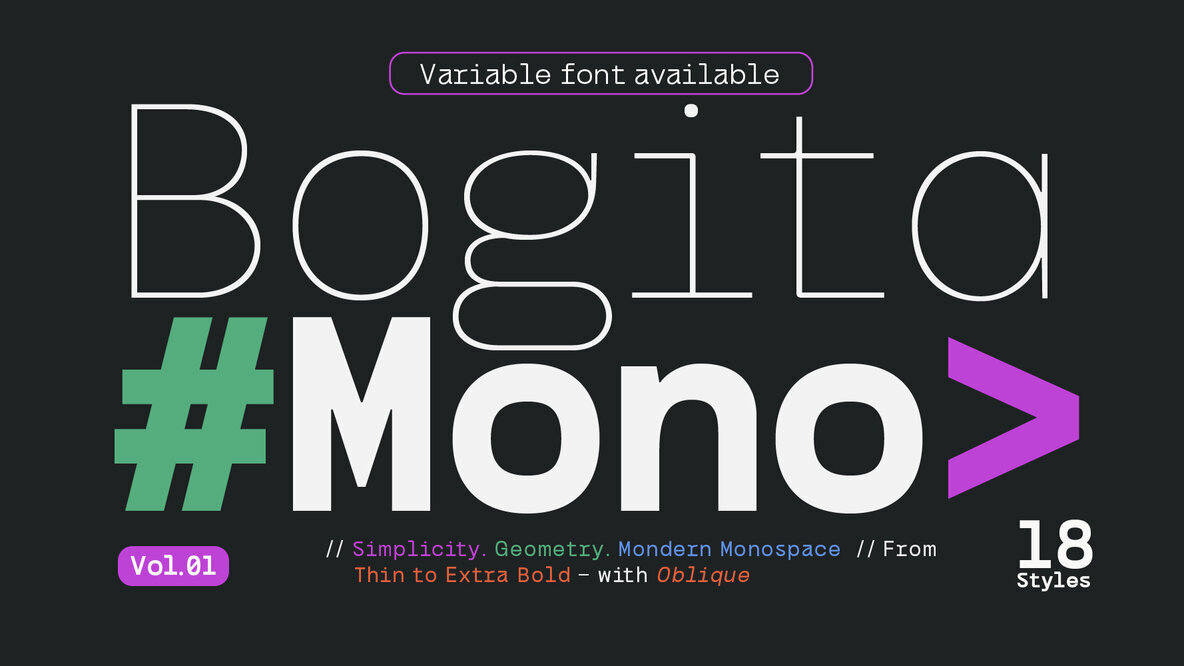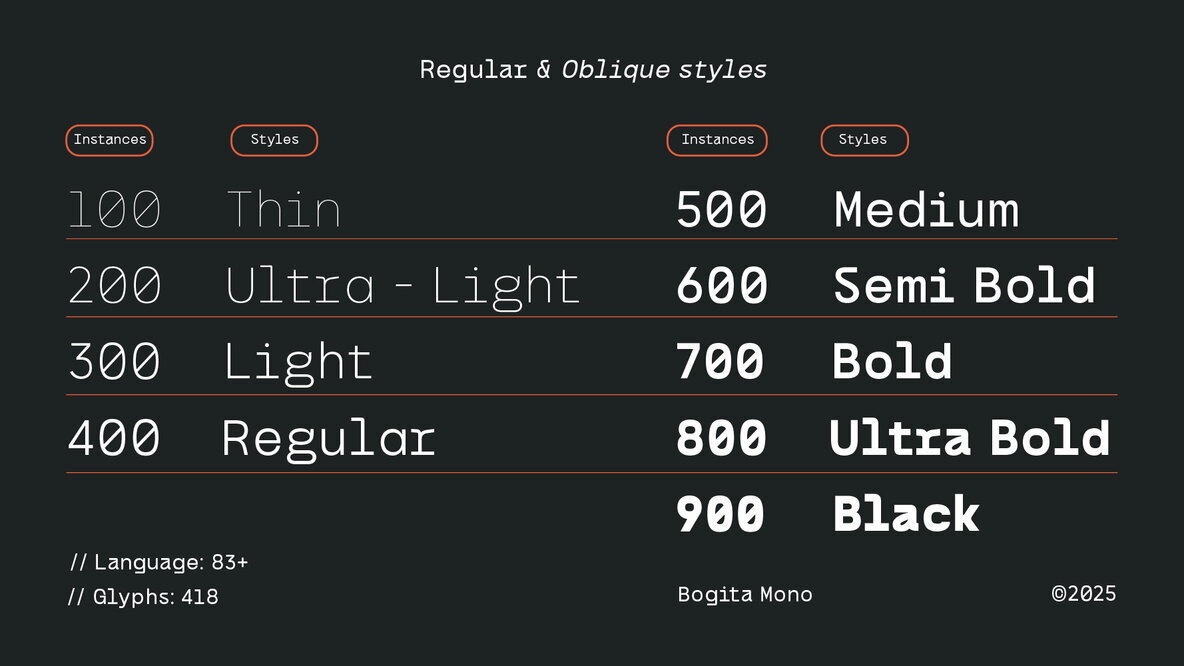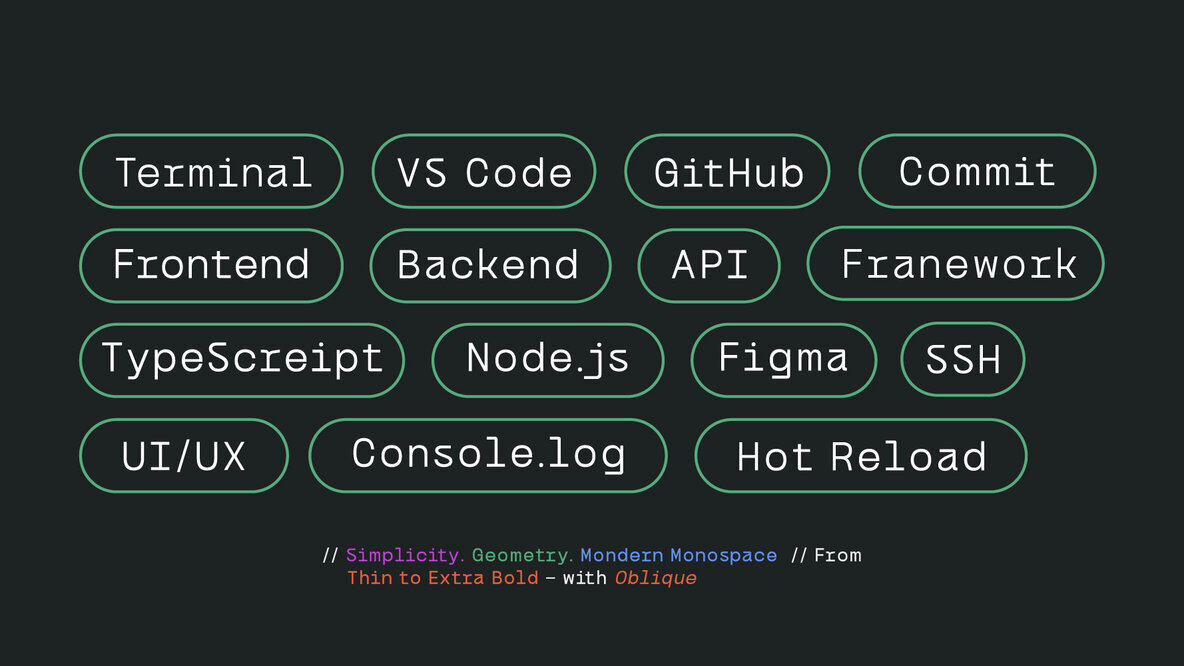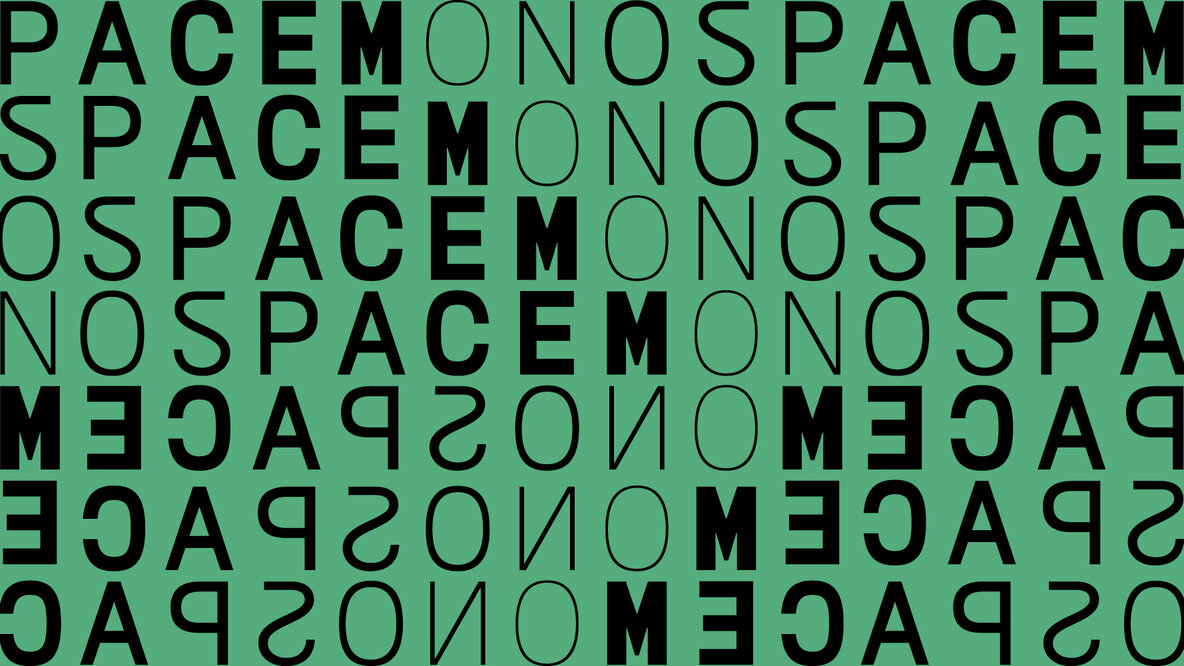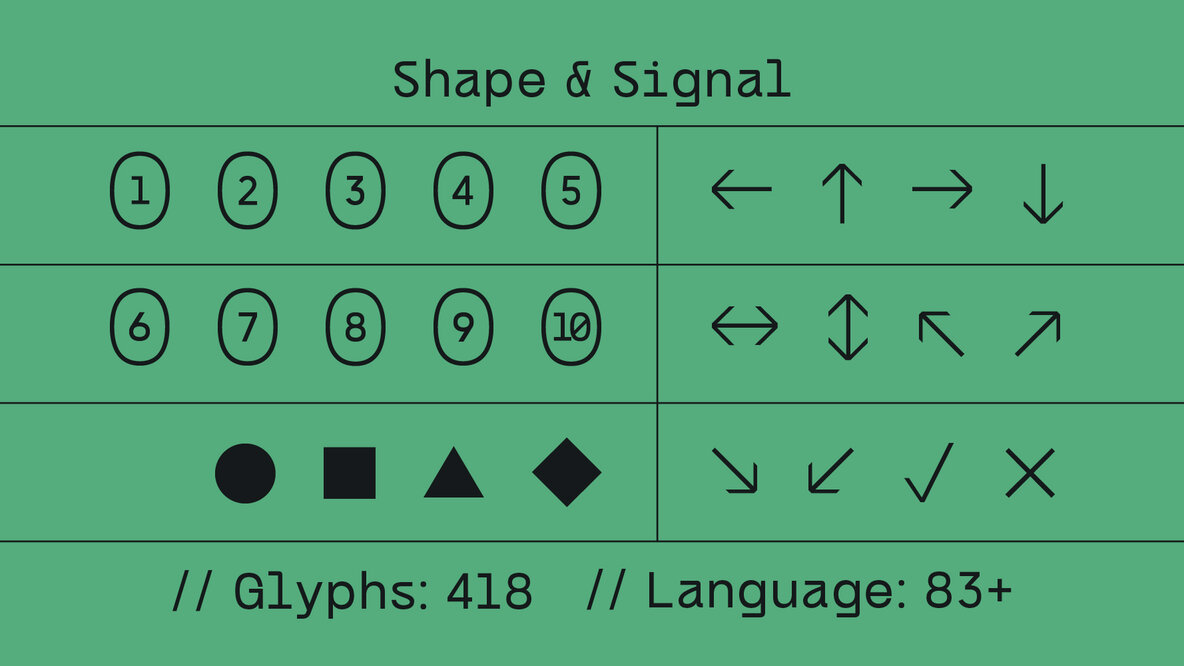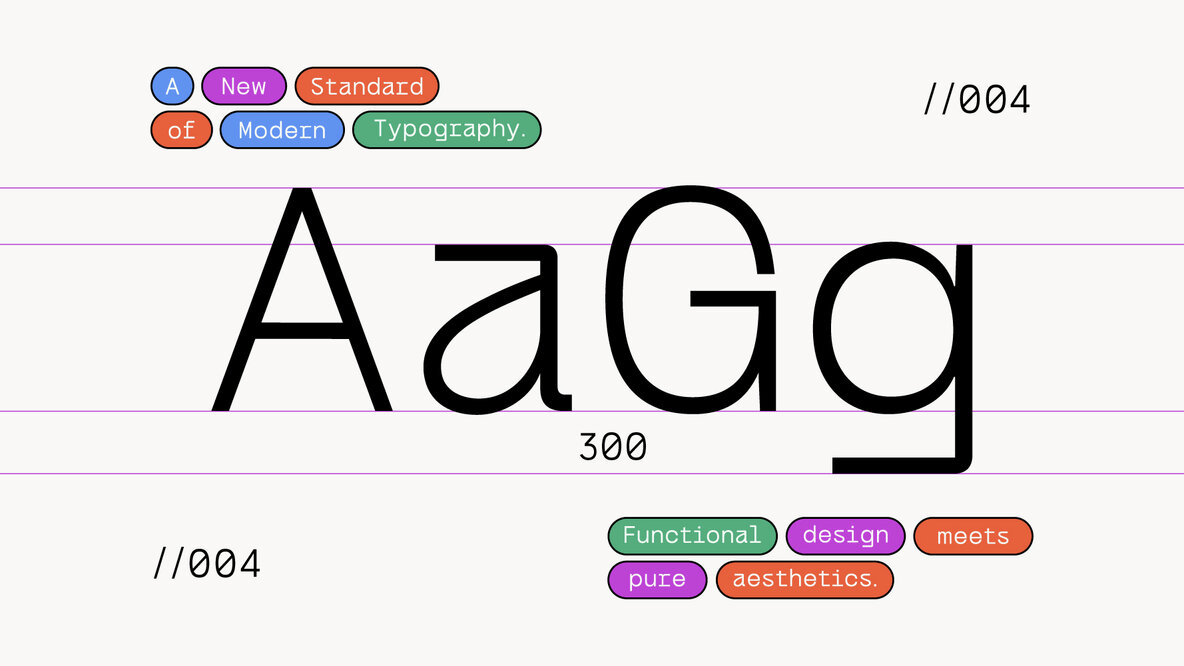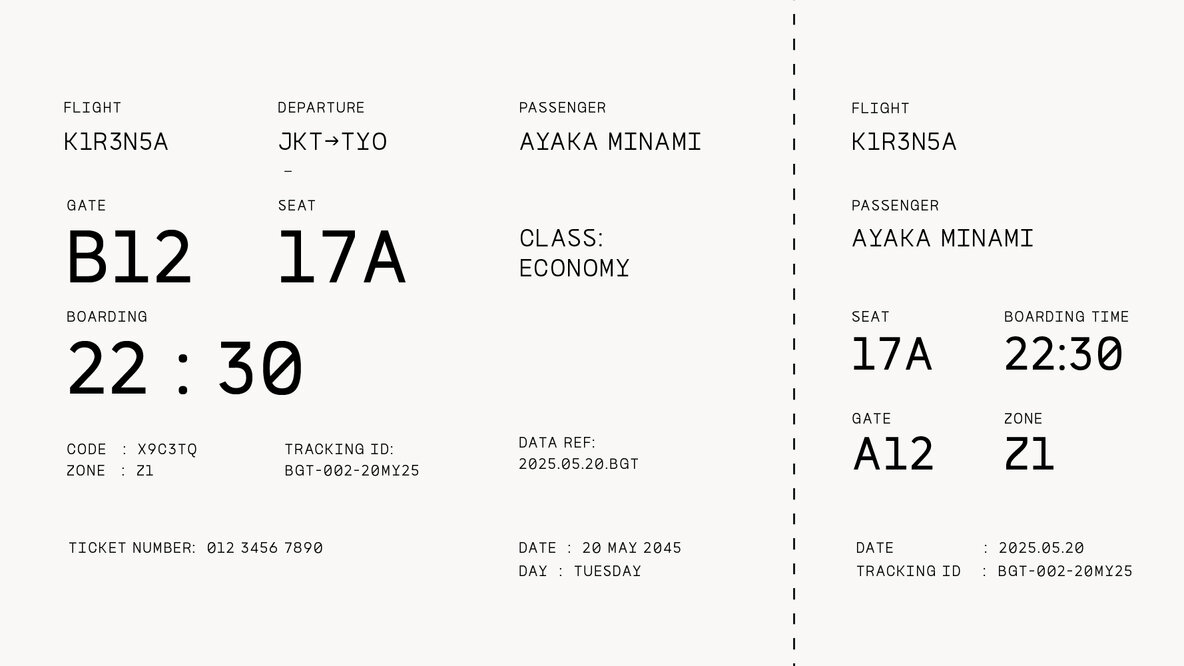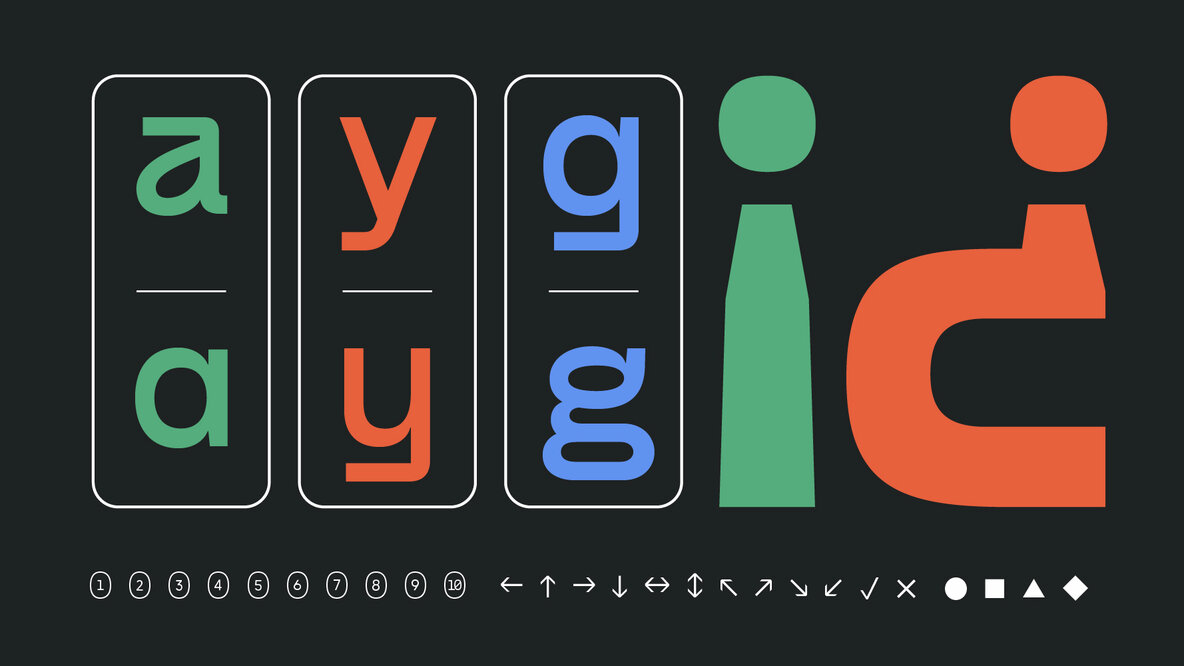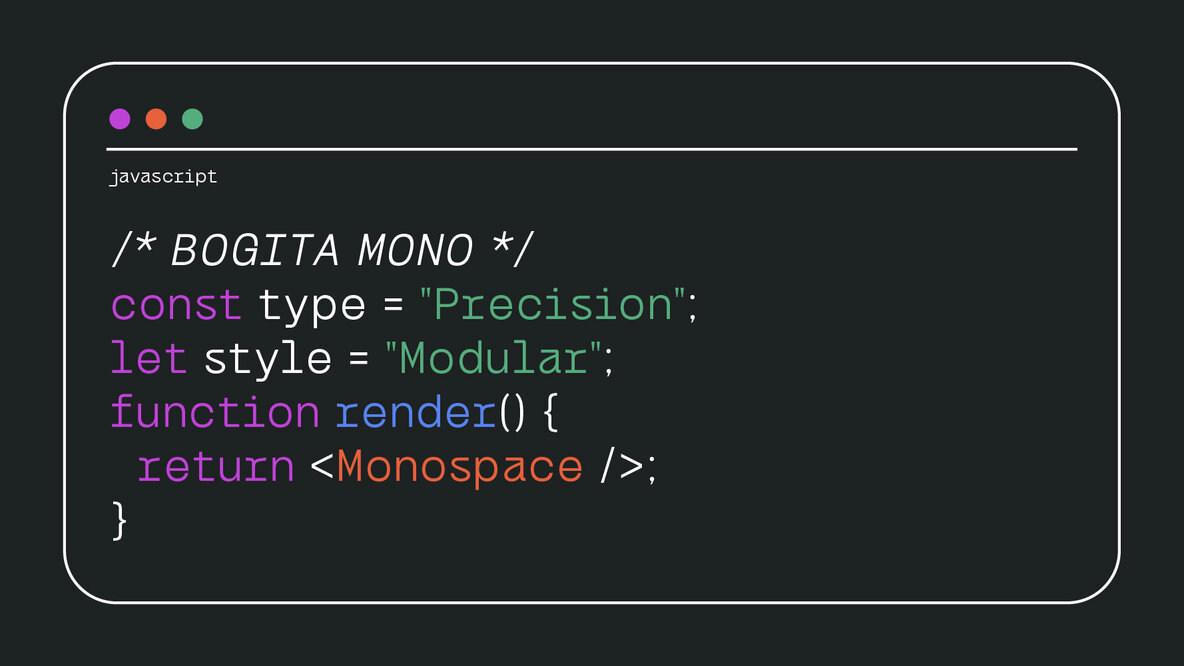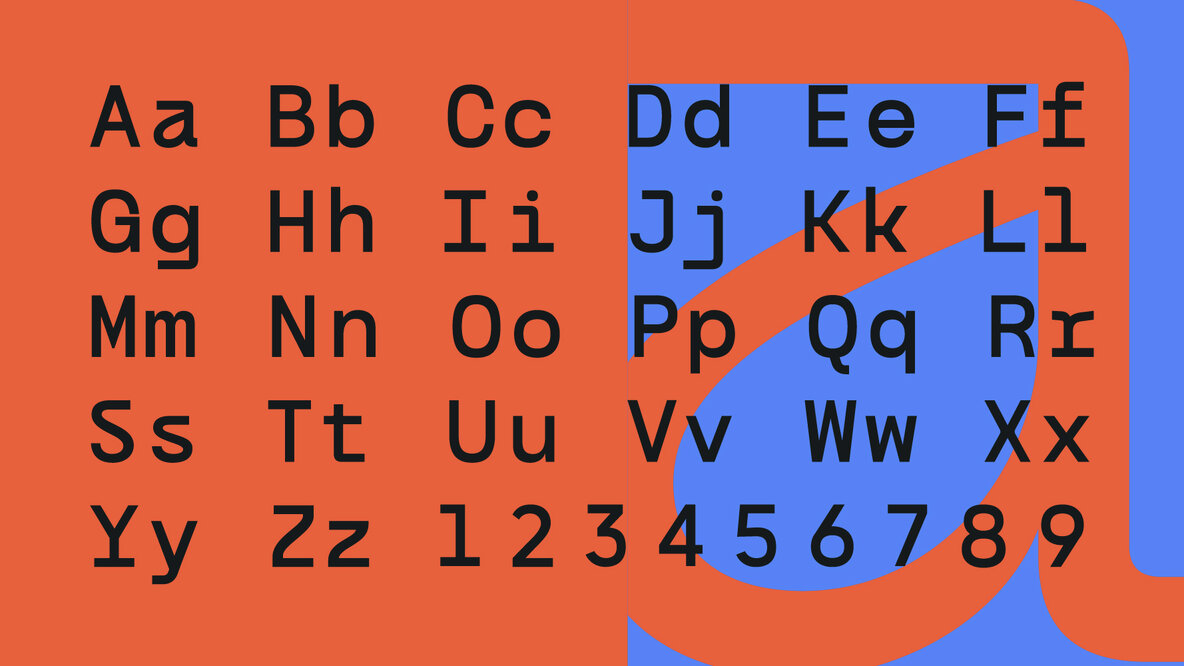
Bogita Mono Font
Bogita Mono Variable
Bogita Mono is a geometric monospace typeface defined by its simplicity and precision. As a font that seamlessly combines the elegant structure of a coding typeface with a contemporary aesthetic, Bogita Mono is ideal for digital interfaces, technical branding, and cutting-edge editorial layouts. Offered in 18 distinct styles, from Thin to Extra Bold, with additional Oblique options and a Variable font, Bogita Mono caters to both creative and technical design needs. This flexibility ensures adaptability across a range of modern projects. Originating from Nollevé Studio, Bogita Mono bridges the gap between design and technology, offering a versatile solution for those who demand both precision and personality in their typeface choices.Bogita Mono: Precision in a Modern Monospace Typeface